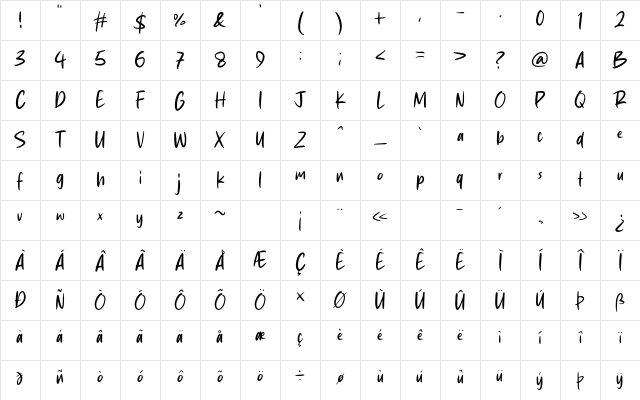
Last Beast Regular Free Font
Last Beast Regular
Design Context for Last Beast
Last Beast is a composed and adaptable typeface that performs quietly and consistently across a wide range of design contexts.